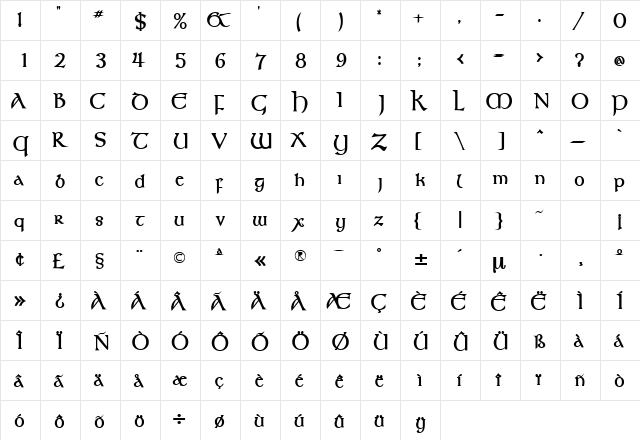
UmberSSK Bold
Design Context for UmberSSK Typeface
UmberSSK is a composed and adaptable typeface that performs quietly and consistently across a wide range of design contexts. The heavy weight commands attention and anchors typographic hierarchies.